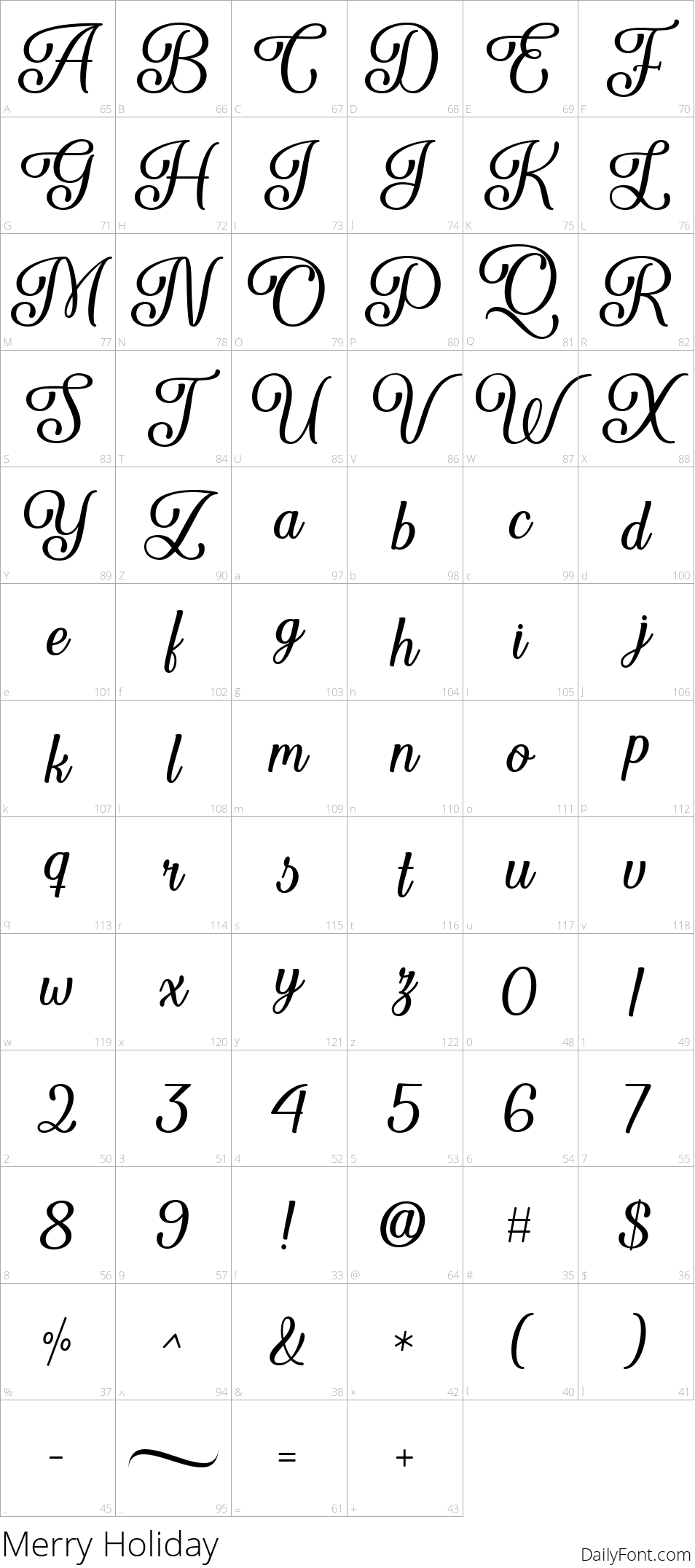
Merry Holiday
Merry Holiday is an elegant calligraphy typeface that perfectly embodies the spirit of the holiday season. Its flowing and graceful curves exude a timeless charm, making it an ideal choice for festive projects. Whether you are designing invitations for a holiday party, crafting beautiful cards, or creating eye-catching gift tags, Merry Holiday adds a sophisticated touch to your work.
This versatile font not only enhances the visual appeal of your designs but also conveys a warm, inviting atmosphere that resonates with the joys of the holidays. Its unique calligraphic style sets it apart from standard typefaces, allowing your projects to stand out. Each character is carefully crafted to bring elegance and festivity to any design. Make your holiday materials unforgettable with Merry Holiday, and let your creativity flourish during this special time of year.